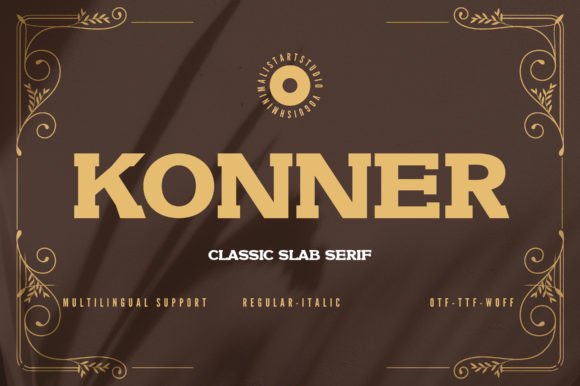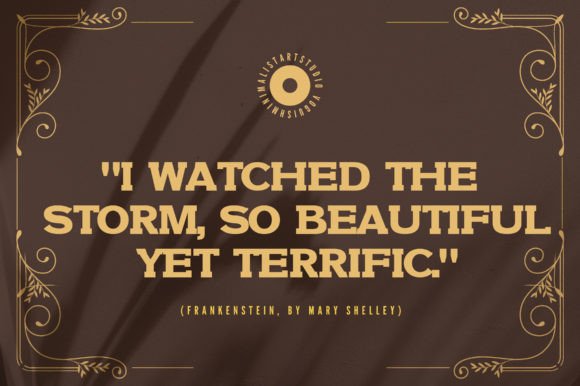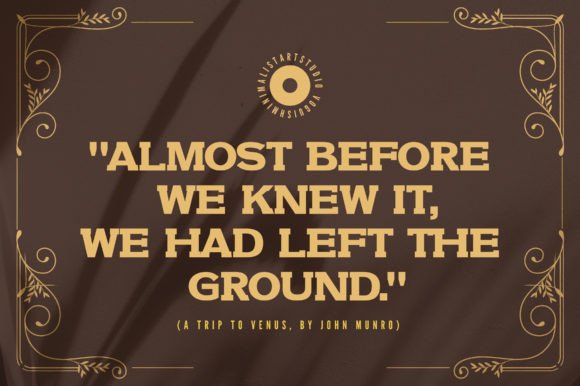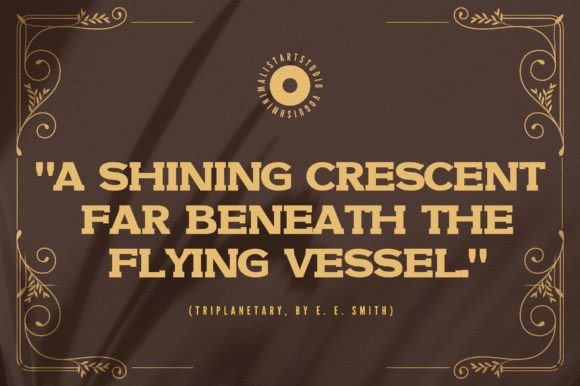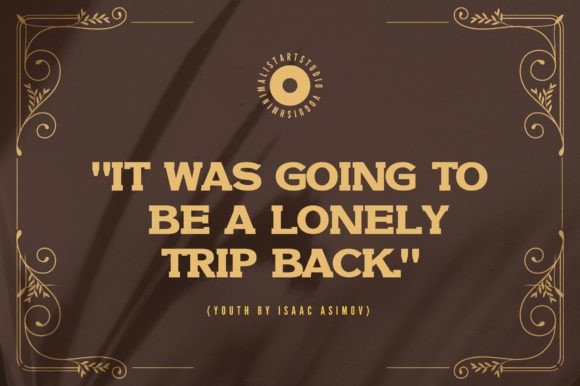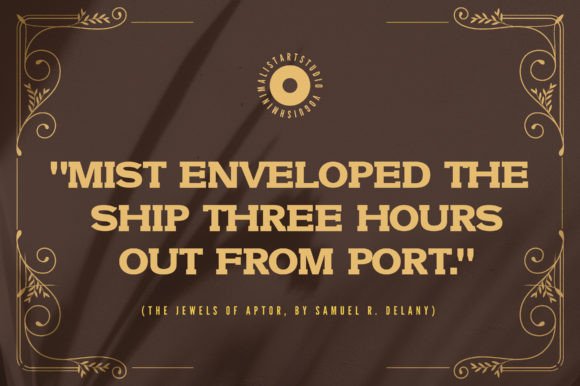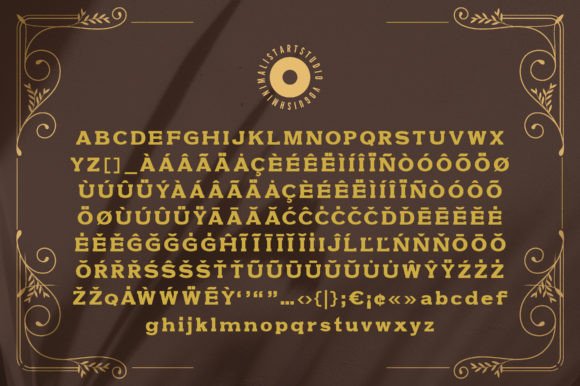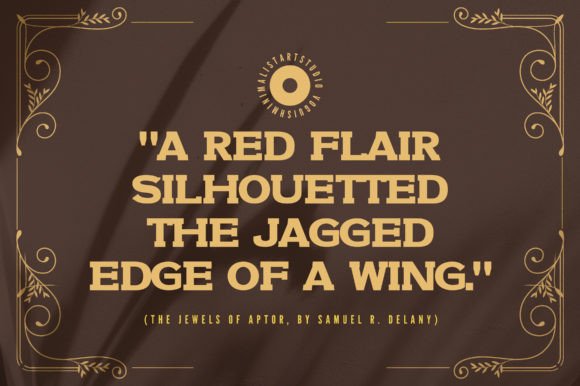
Konner
Konner: A Wonderful and Elegant Slab Serif Font
Konner is a wonderful and elegant slab serif font that enhances any design theme. This versatile typeface serves as a valuable addition to any font library, capable of elevating various creative projects to the highest level.
Key Features of Konner
• Elegant Design: Offers refined and sophisticated letterforms[2].
• Wonderful Style: Brings graceful character to designs.
• Versatile Appeal: Adapts well to various design themes.
• Enhanced Impact: Elevates projects to new heights.
When using Konner in your designs, keep these tips in mind:
• Try it for headlines or display text to showcase its elegant style[3].
• Use different sizes to highlight its wonderful features.
• Let its versatility enhance various design themes.
• Take advantage of its ability to elevate projects.
To sum up, Konner is an excellent choice for designers seeking a wonderful and elegant slab serif font. Its versatility makes it perfect for enhancing any design theme. Whether you’re creating sophisticated layouts or developing creative projects, Konner offers the perfect blend of elegance and versatility.
Furthermore, Konner’s distinctive design allows it to shine in contexts where both refinement and adaptability are key. The font can elevate your projects with its wonderful style while maintaining the flexibility to work across various design themes[2][7].
In conclusion, Konner truly captures the essence of elegant design in slab serif typography. Its ability to enhance various applications shows how well it can serve creative needs. Therefore, for those wanting to add a touch of wonderful sophistication to their work, Konner can transform any design with its distinctive style. Ultimately, it’s perfect for designers aiming to elevate their projects to the highest level.